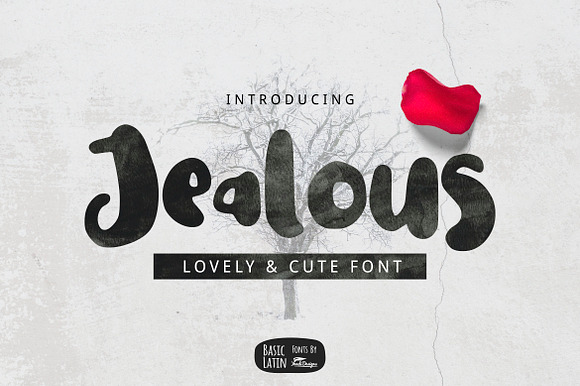
Jealous Cute Font
Jealous font is lovely , cute, simple, playful, multipurpose handwritten font , suitable for many project children book, quotes, logo , heading , title etc.
Why Jealous Cute Font is worth a look
Jealous Cute Font by YandiDesigns fits naturally into Branding, posters, packaging, typography.